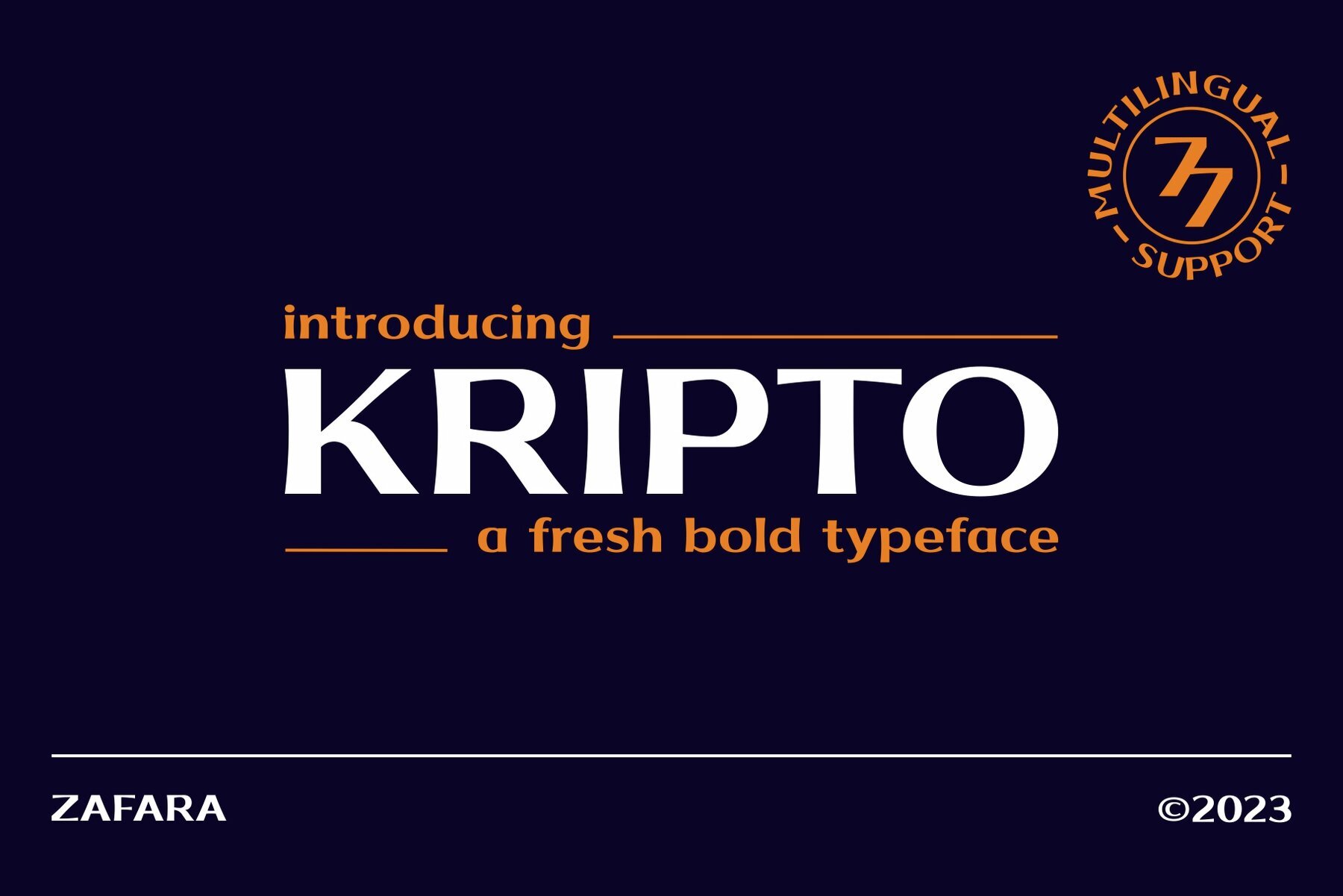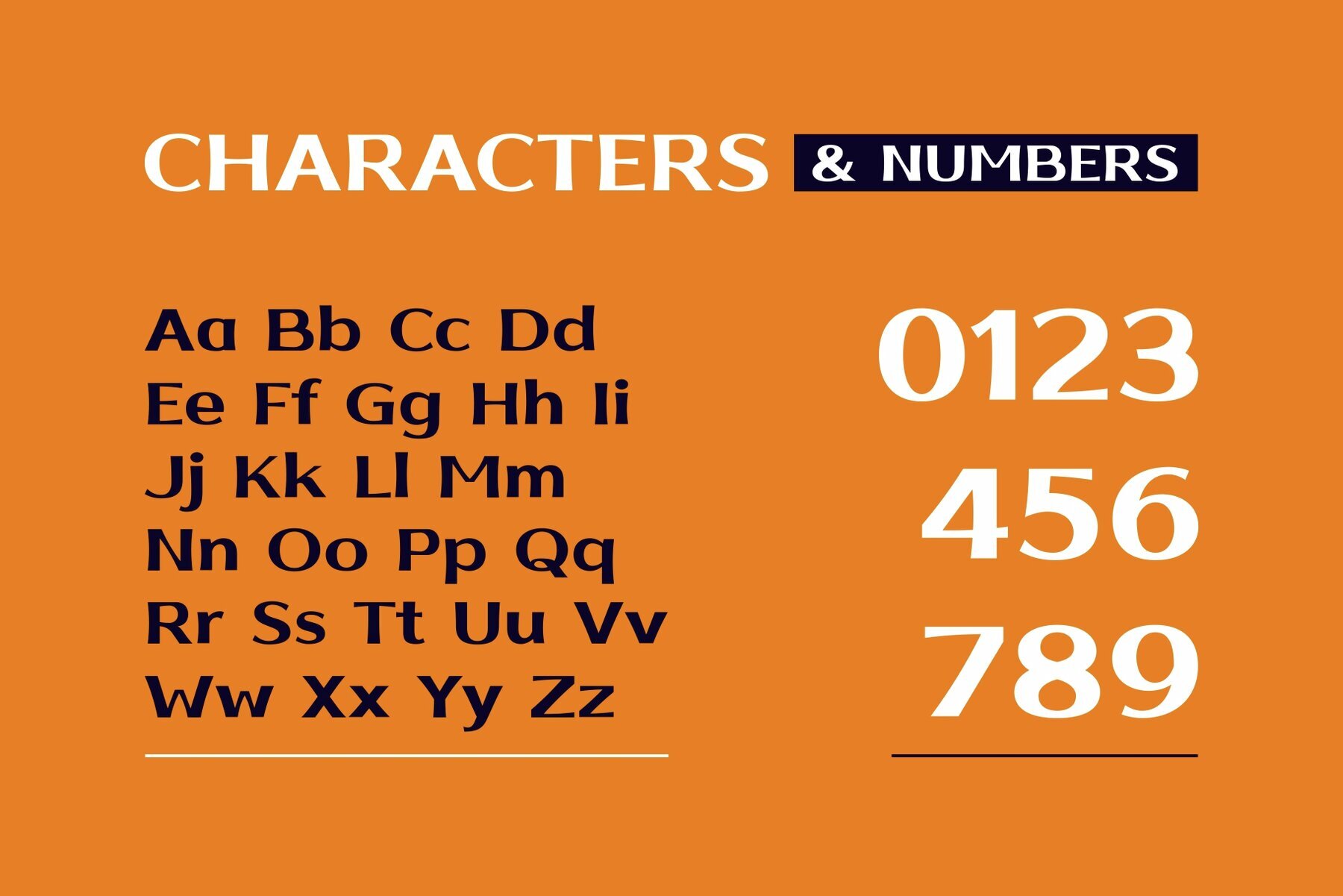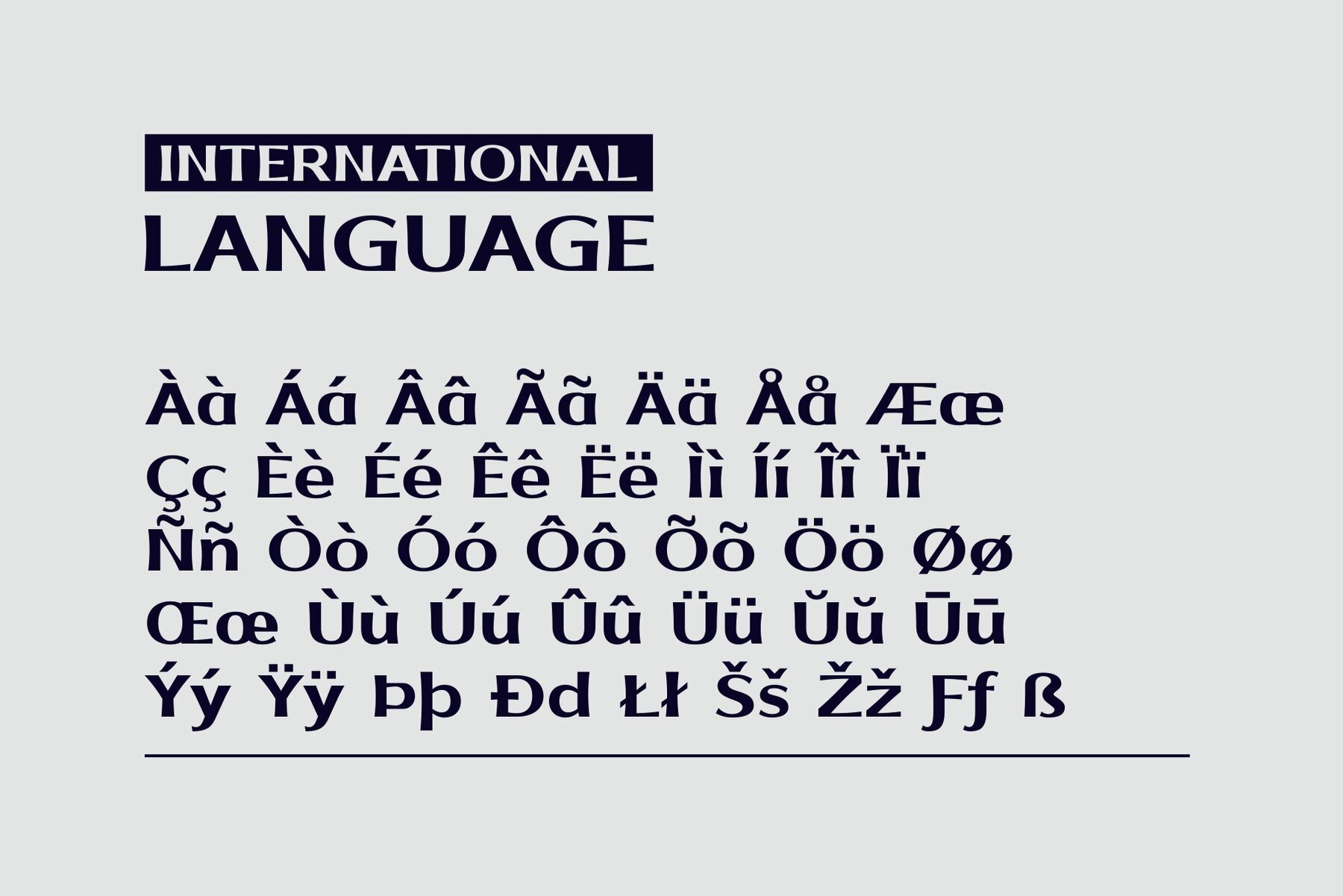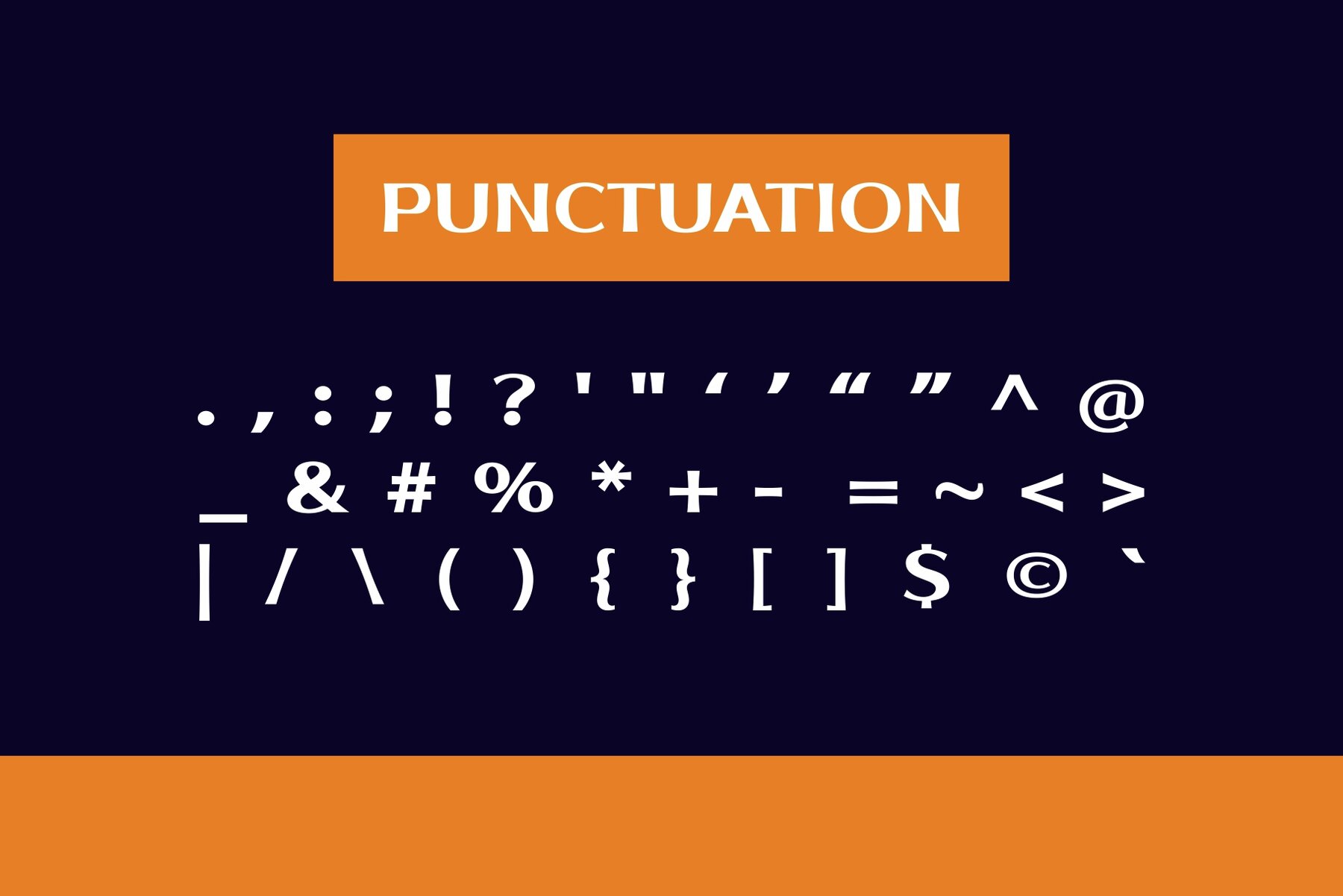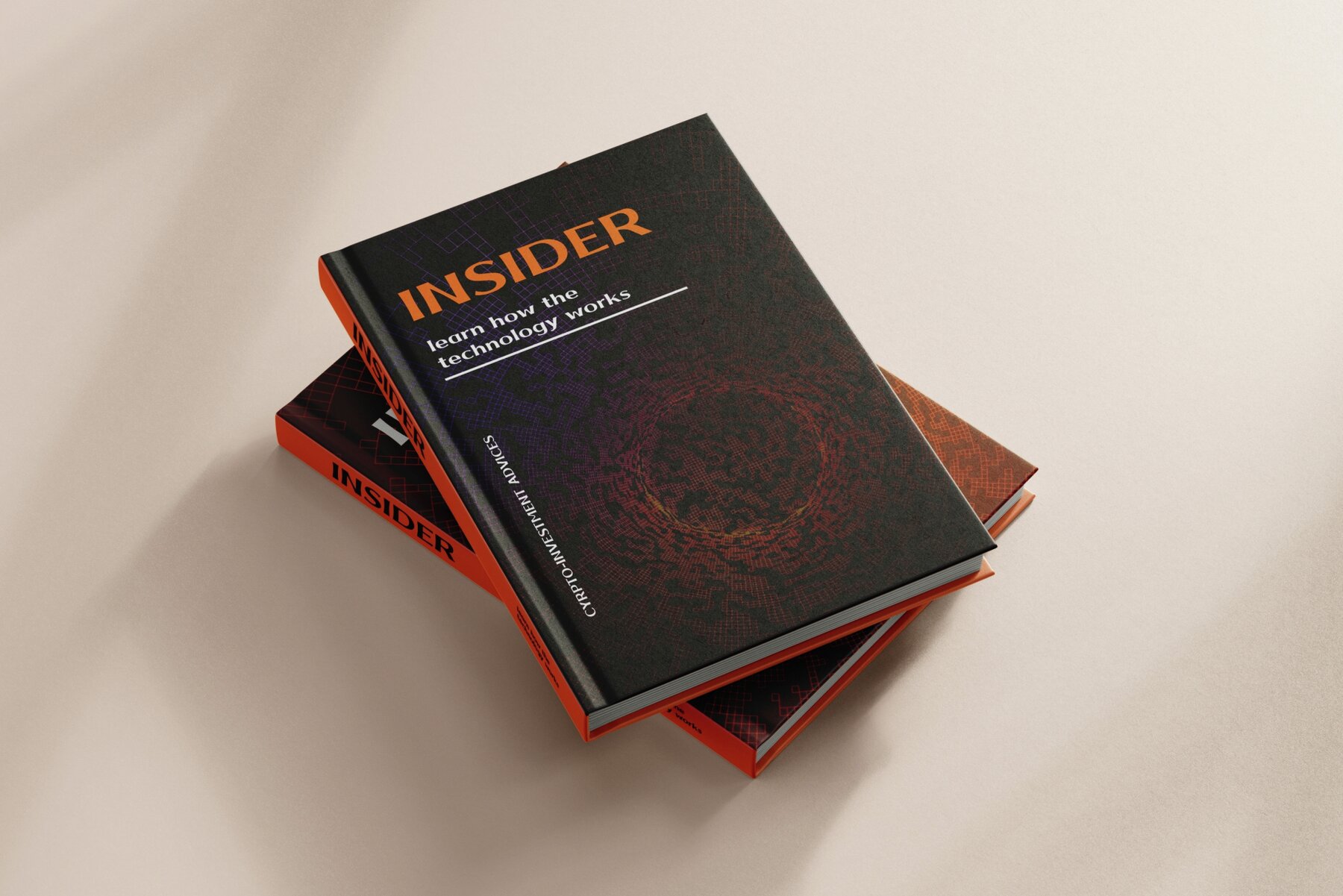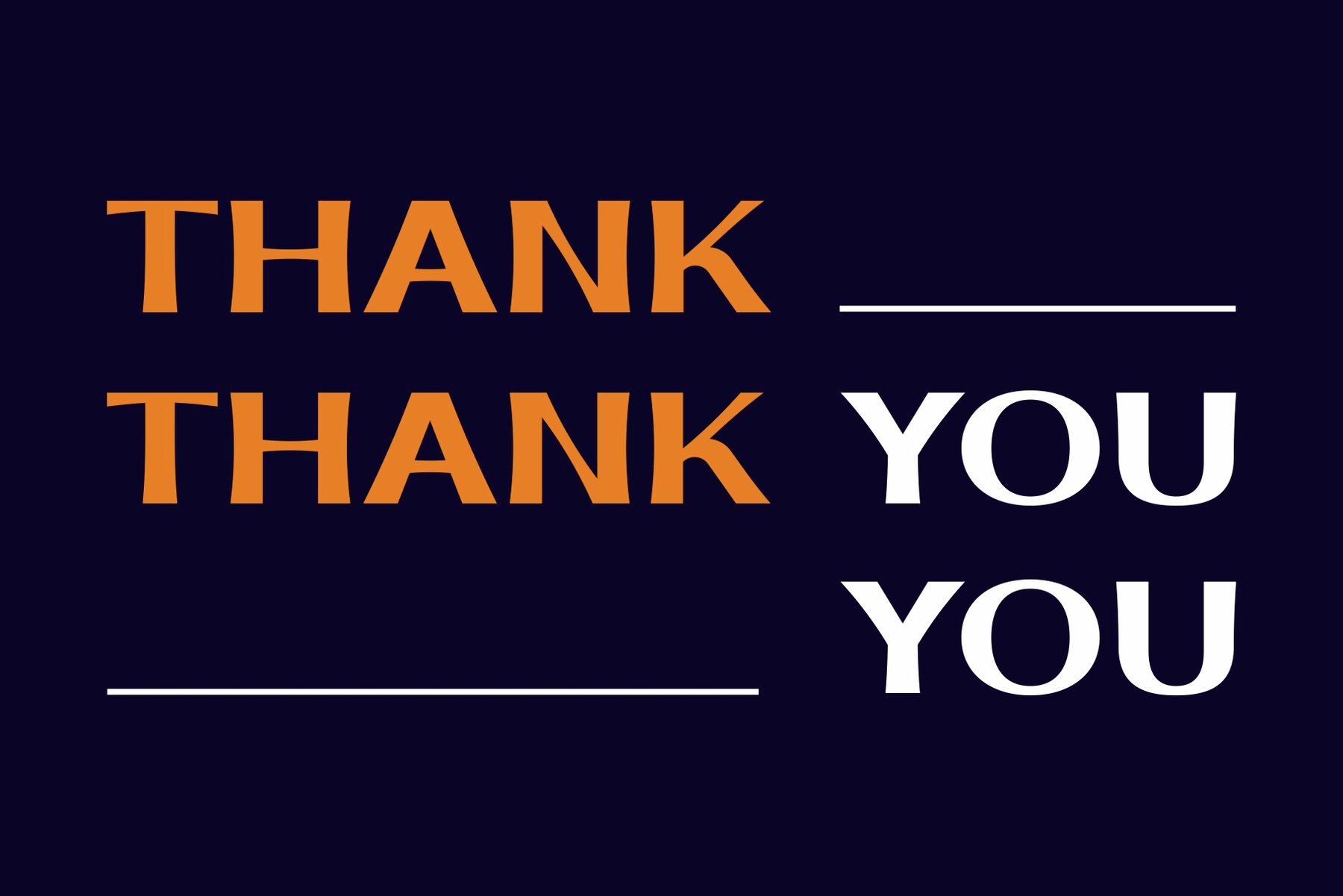
Kripto Font
Kripto Regular
Kripto is a bold and wide typeface ideal for a variety of uses where a strong visual impact is desired. Its versatility allows it to shine in headlines and titles, logos and branding, calls to action, and more. Its balanced design embodies power, authority, modernity, and a fun touch, making it perfect for signage, displays, packaging, and social media graphics.Kripto: Bold and Wide Font for Modern Designs